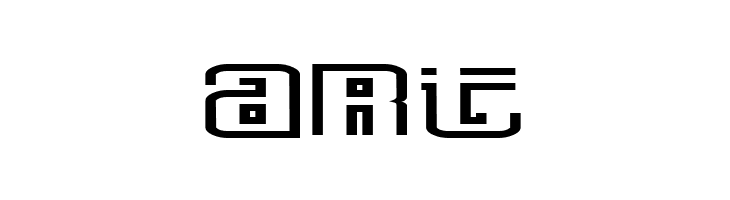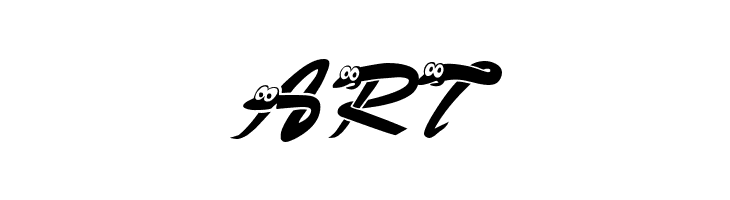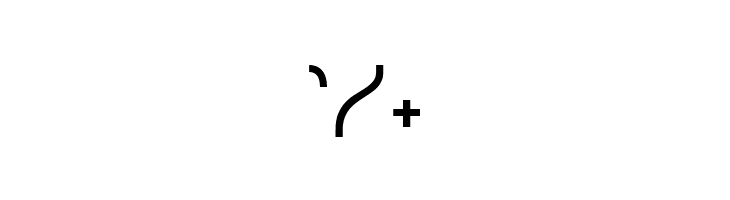
A bold, angular font with a dynamic and edgy style.
A playful, hand-drawn font with dotted embellishments.
A playful, hand-drawn font with irregular strokes and a casual, artistic style.
An elegant script font with intricate swashes and a classic calligraphic style.
A futuristic, abstract font with fragmented, bold characters.